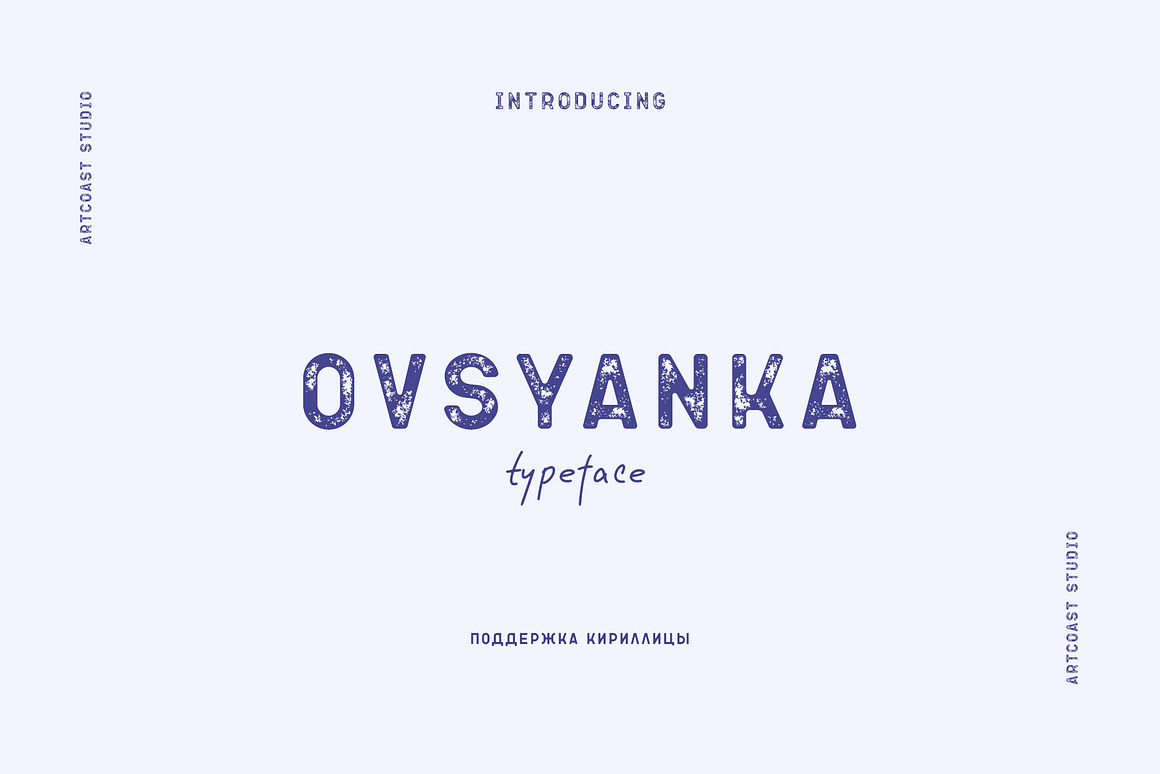
Ovsyanka Typeface Font
Ovsyanka Typeface Font is perfect for wholesome breakfast brands, nourishing food companies, healthy morning routine services, nutritious meal planning, comforting breakfast cafes, and warming porridge manufacturers. Its nourishing character makes it ideal for organic oatmeal brands, healthy breakfast delivery services, nutritious morning programs, wholesome grain companies, comforting food blogs, and any project requiring wholesome nourishment with morning comfort and healthy breakfast appeal.
This font is exciting because it embodies the wholesome comfort and nutritious simplicity of a perfect breakfast while delivering exceptional functionality for brands celebrating healthy morning routines, nourishing foods, and the fundamental importance of starting each day with wholesome nutrition. The warmly crafted letterforms evoke the comforting steam and satisfying warmth of fresh porridge, creating typography that feels both nourishing and naturally appealing.
The Ovsyanka Typeface Font family typically includes Light, Regular, Medium, and Bold weights with wholesome alternates, nourishing ligatures, and comforting elements that enhance its healthy personality. This comprehensive collection enables food professionals to create wholesome brand systems that maintain nutritious credibility while offering flexibility for various breakfast applications requiring both healthy appeal and contemporary morning market positioning.